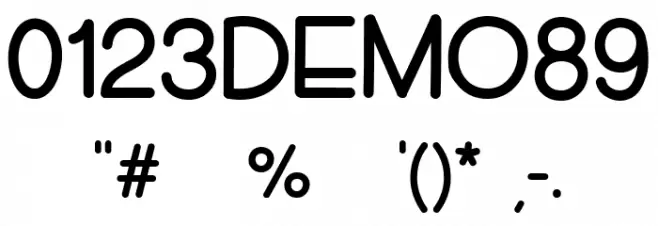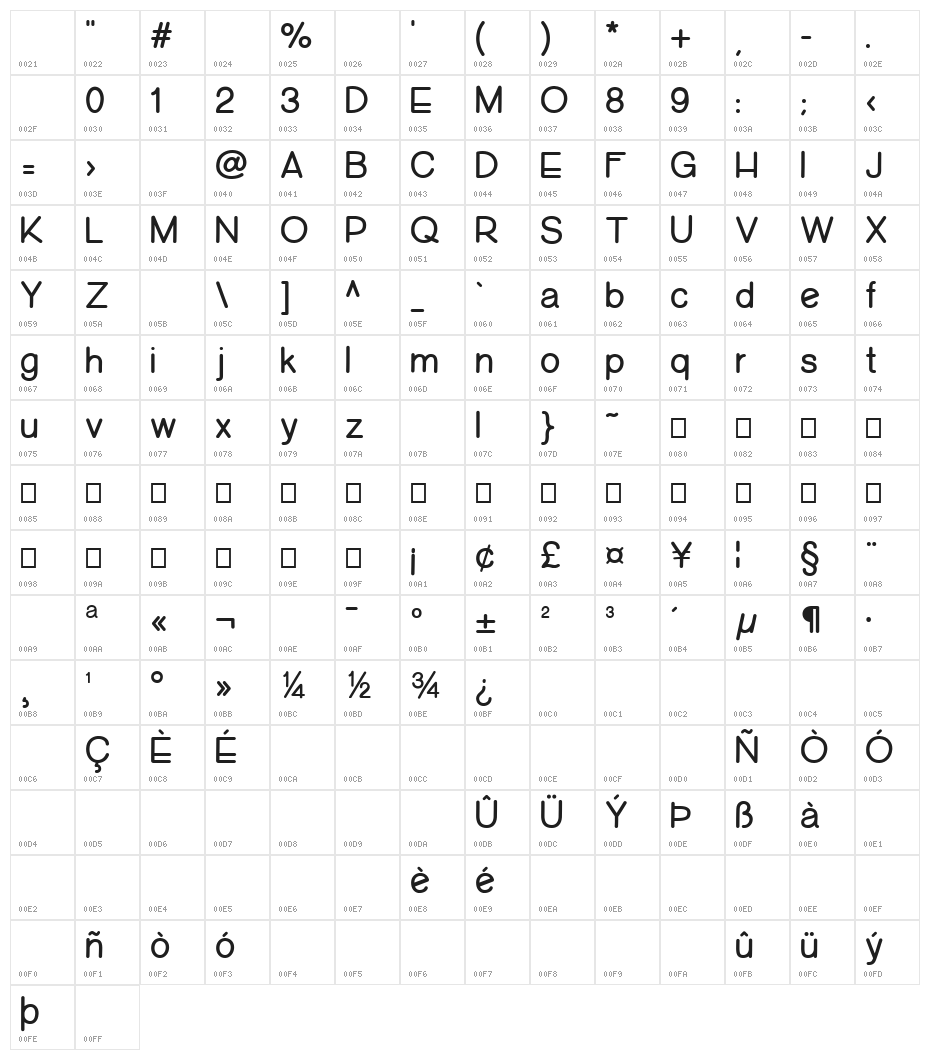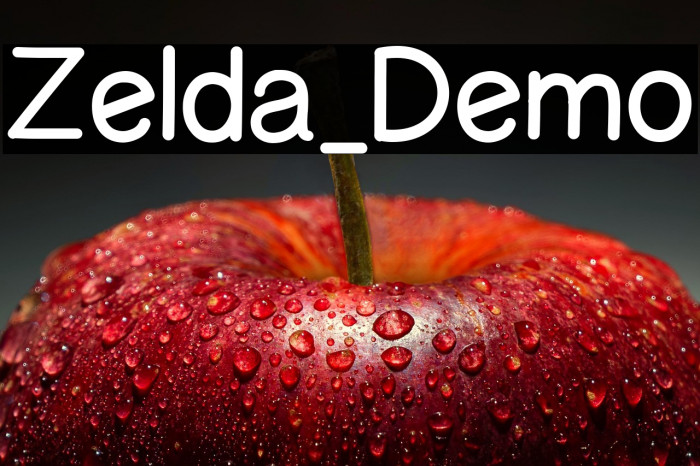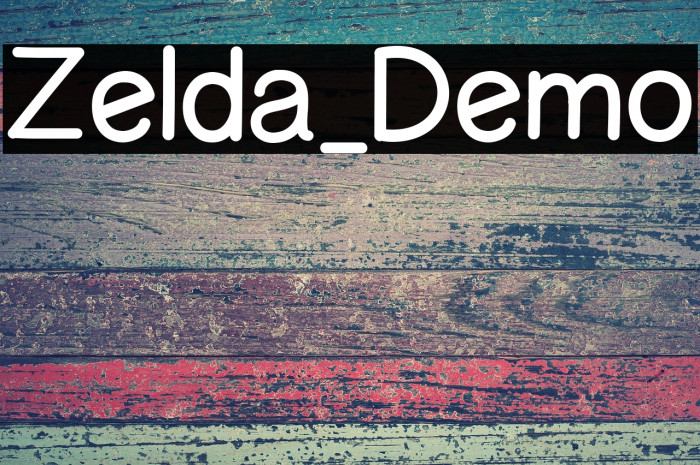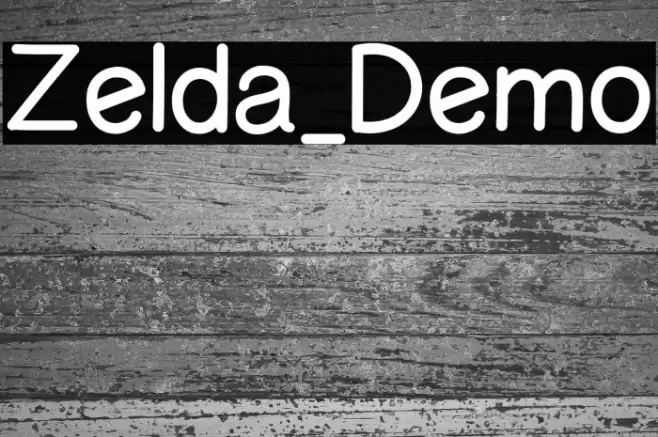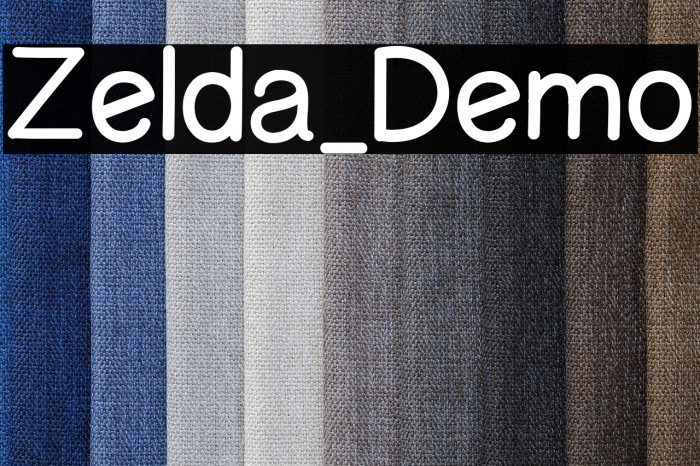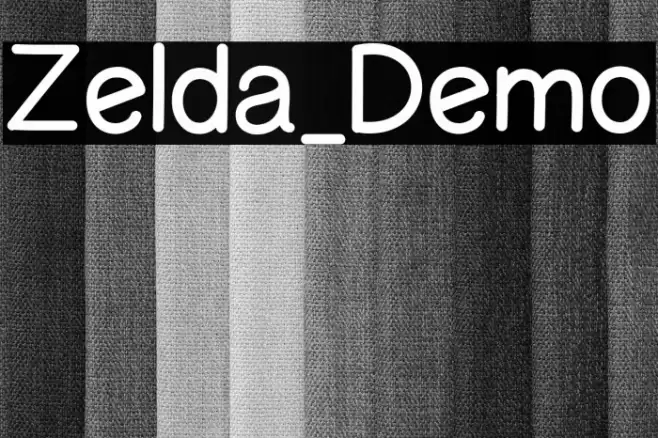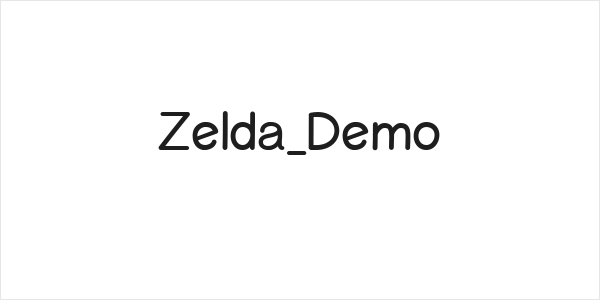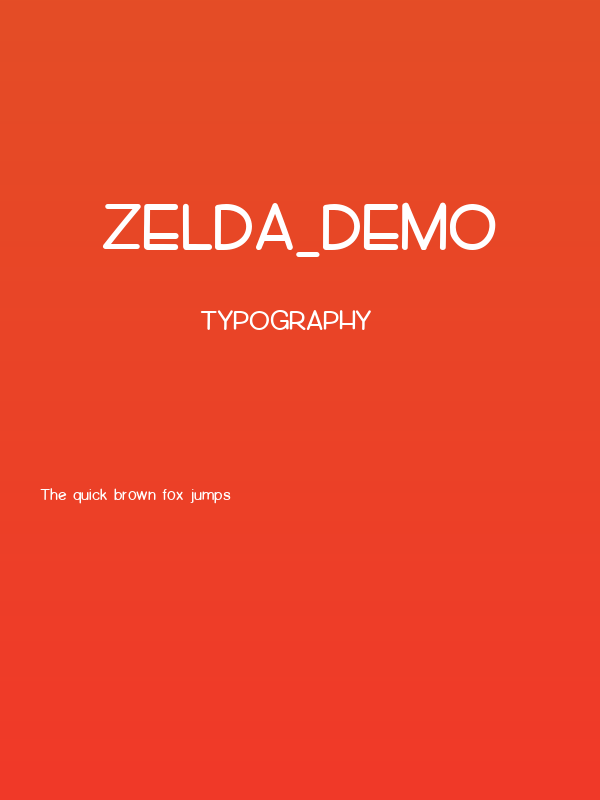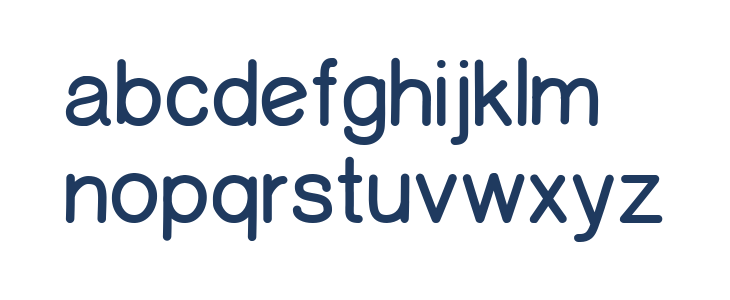
Zelda_Demo Font
Zelda_Demo Description
This font features a clean and modern sans-serif design with rounded edges, giving it a friendly and approachable appearance. The characters are evenly spaced, providing a balanced and harmonious look. The uppercase letters are slightly taller than the lowercase, maintaining a consistent line weight throughout. The numerals are clear and easy to read, making them suitable for various applications. Special characters are designed with the same rounded style, ensuring uniformity across all glyphs. This font's simplicity and clarity make it versatile for both digital and print media.